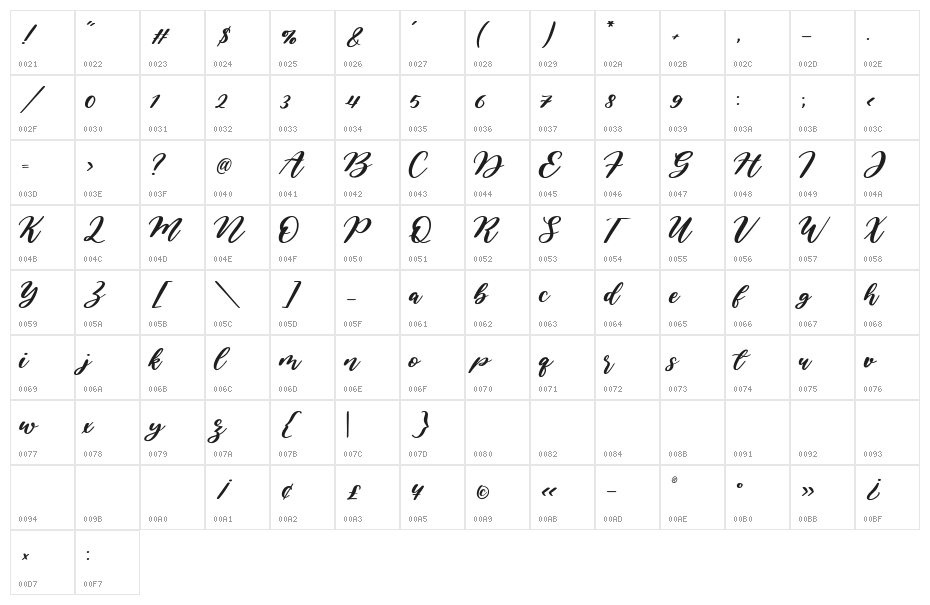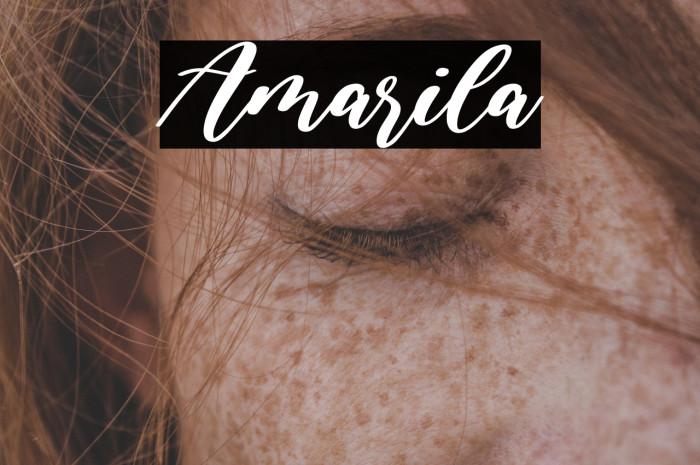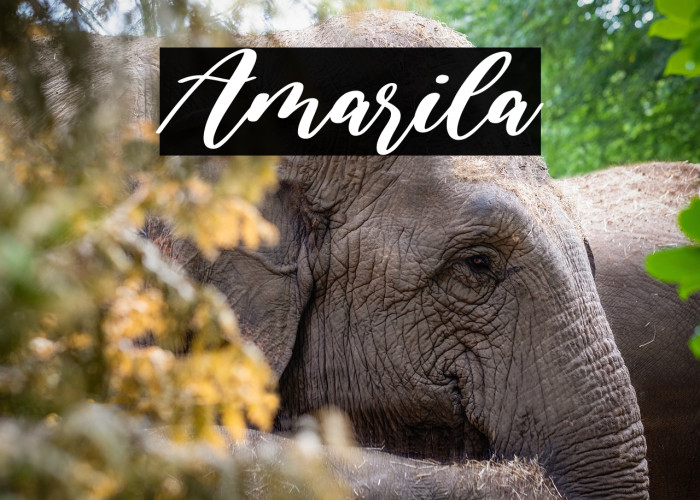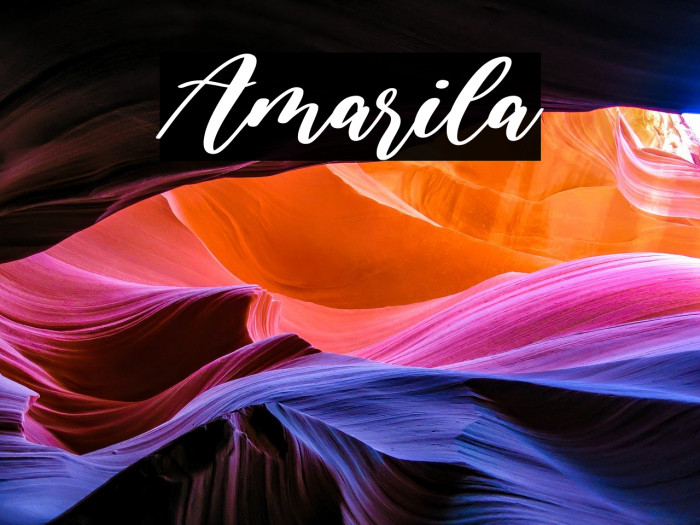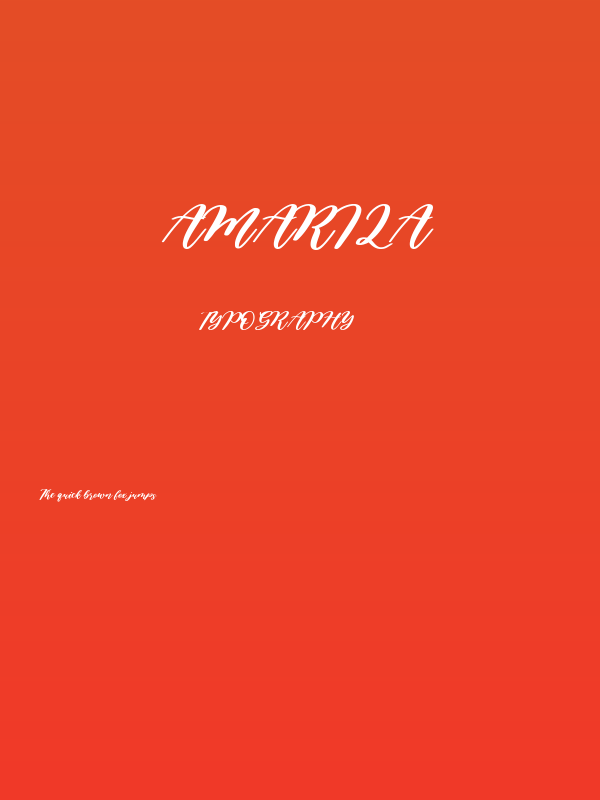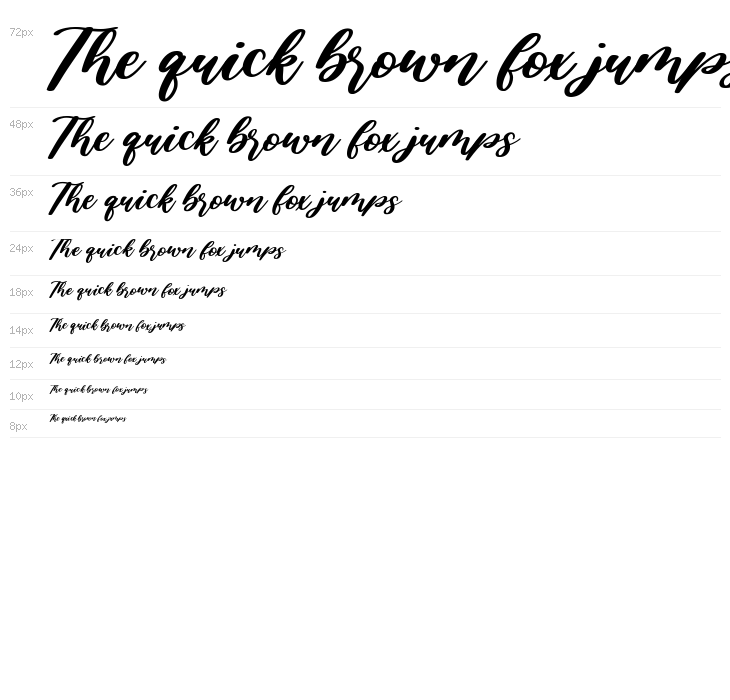
Amarila Font
Amarila Description
This elegant script font features flowing, cursive letterforms with a smooth and fluid appearance. The characters are interconnected, creating a seamless and harmonious look. The uppercase letters are slightly more ornate, with flourishes that add a touch of sophistication. The lowercase letters maintain a consistent style, complementing the uppercase with their rounded and graceful curves. The numerals and special characters are designed to match the overall aesthetic, ensuring a cohesive appearance across all elements. This font exudes a sense of elegance and refinement, making it suitable for formal and decorative uses.
| Overall Style | Elegant, Decorative |
| Proposed Projects | Ideal for wedding invitations, greeting cards, branding, and elegant logo designs. |